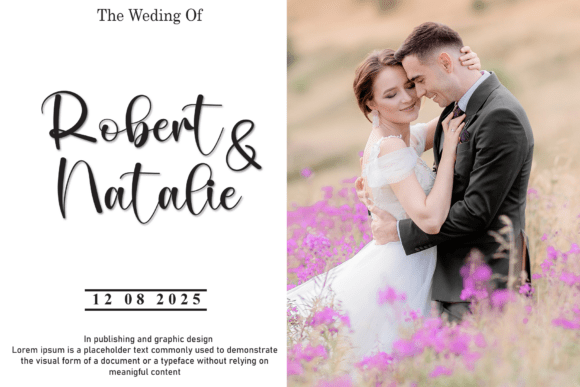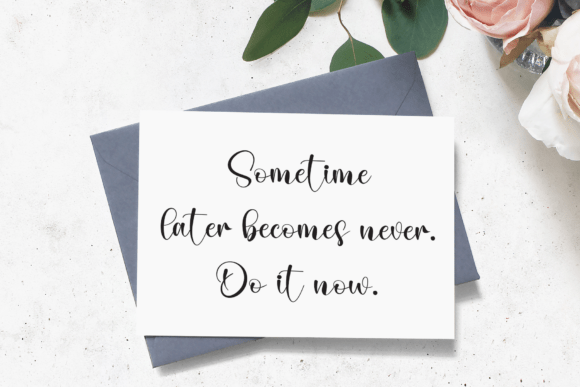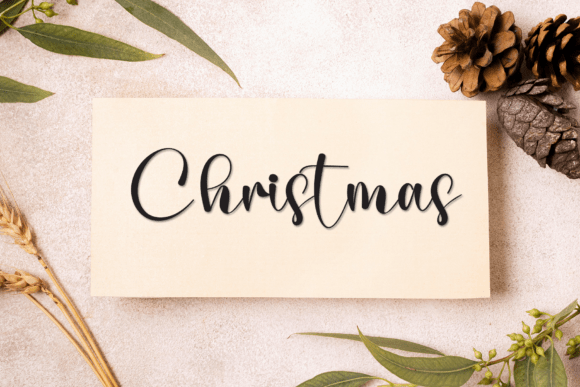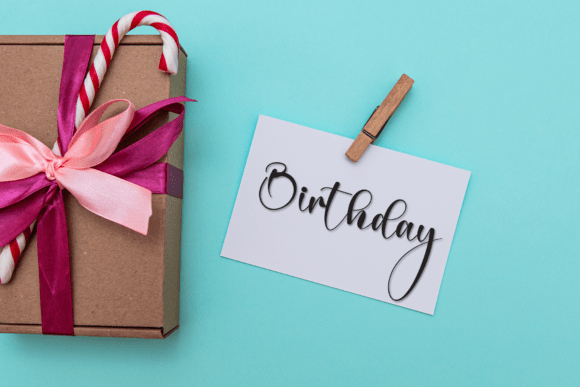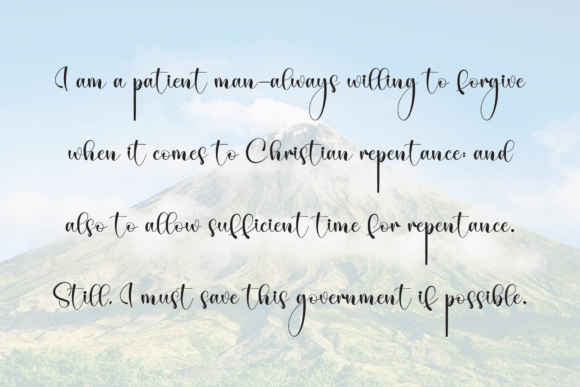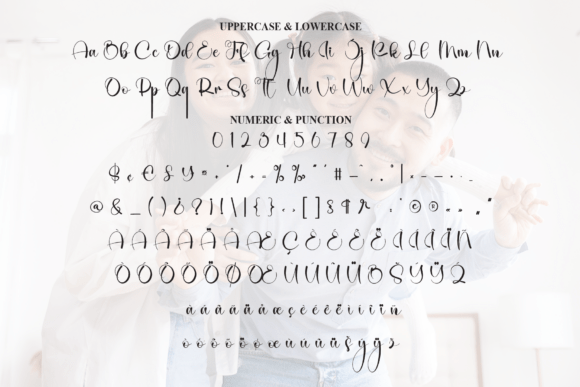
Introducing Family Font: The Timeless Handwritten Font for Your Creative Projects
Are you a designer, crafter, or creative looking for the perfect font to add a personal touch to your projects? Look no further than Family Font, a lovely and timeless handwritten font that’s sure to capture the hearts of your audience. In this article, we’ll dive into the world of Family Font, exploring its unique features, benefits, and uses, and why it’s the best choice for creating eye-catching logos, branding, and quotes.
A Beautifully Crafted Handwritten Font
Family Font is a stunning handwritten font that’s been carefully crafted to bring a touch of warmth and personality to your designs. Every letter has a unique and beautiful touch, making it perfect for creating one-of-a-kind logos, branding materials, and quotes that stand out from the crowd. The font’s handwritten style gives it a friendly, approachable feel that’s sure to resonate with your audience.
Whether you’re a professional designer or a crafter looking to add a personal touch to your projects, Family Font is the perfect choice. Its versatility and legibility make it suitable for a wide range of applications, from logos and branding to quotes, posters, and more. The font’s unique style and character will add a touch of elegance and sophistication to your designs, setting them apart from the rest.
Unique Features of Family Font
So, what makes Family Font so special? Here are just a few of its unique features:
- Handwritten style: Family Font’s handwritten style gives it a warm, personal feel that’s perfect for creating designs that connect with your audience.
- Unique letterforms: Every letter in Family Font has a unique and beautiful touch, making it perfect for creating one-of-a-kind designs.
- Legible and versatile: Despite its unique style, Family Font is highly legible and versatile, making it suitable for a wide range of applications.
Benefits of Using Family Font
So, why should you choose Family Font for your creative projects? Here are just a few benefits of using this amazing font:
- Stand out from the crowd: Family Font’s unique style and character will help your designs stand out from the crowd and grab attention.
- Add a personal touch: The font’s handwritten style and unique letterforms will add a personal touch to your designs, making them more relatable and engaging.
- Save time and effort: With Family Font, you can create stunning designs in no time, saving you time and effort in the design process.
How to Use Family Font in Your Designs
Using Family Font in your designs is easy! Here are a few tips to get you started:
- Logos and branding: Use Family Font to create eye-catching logos and branding materials that reflect your brand’s personality.
- Quotes and posters: Add a touch of elegance and sophistication to your quotes and posters with Family Font’s beautiful handwritten style.
- Social media graphics: Use Family Font to create stunning social media graphics that stand out from the crowd and grab attention.